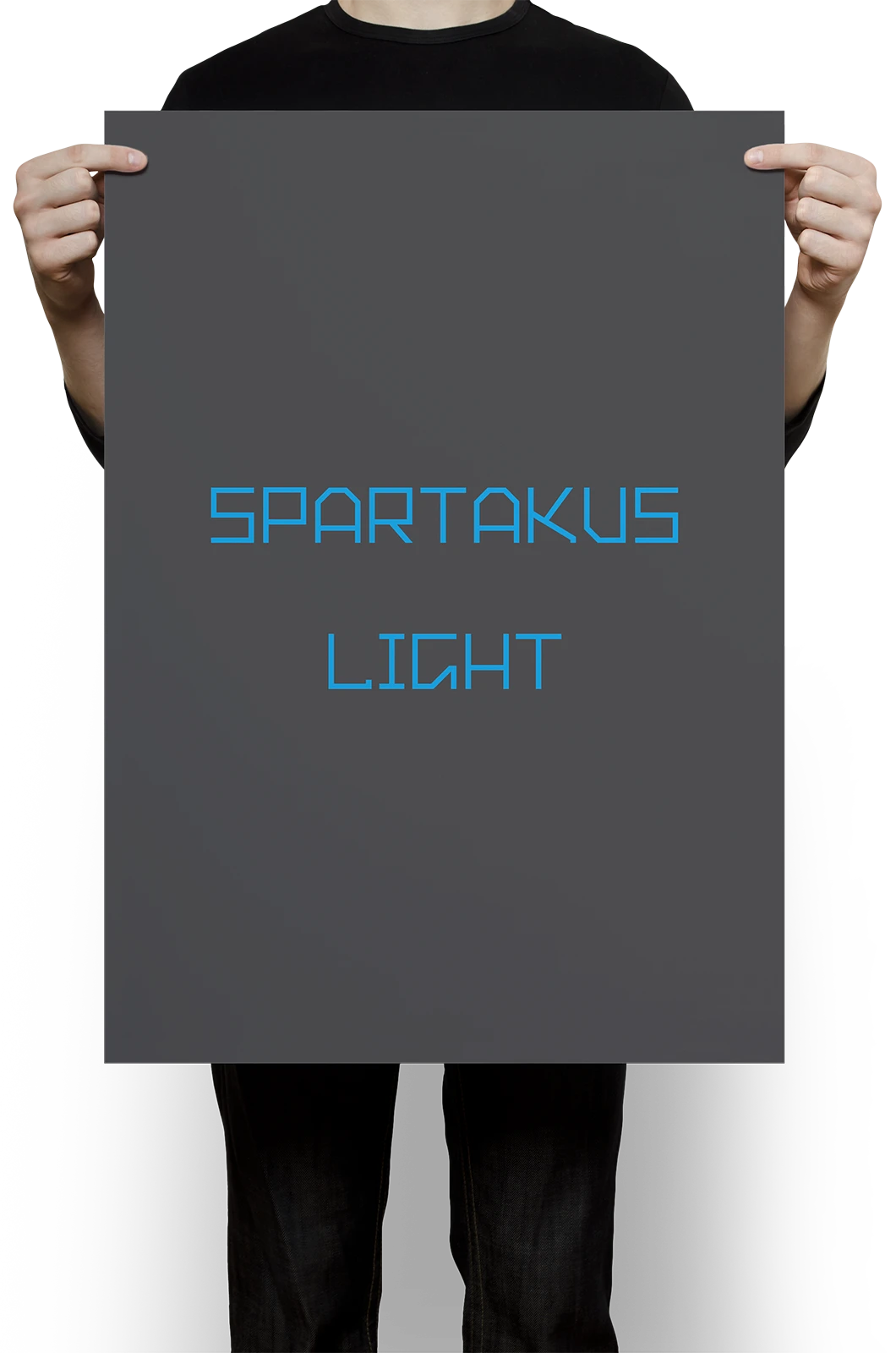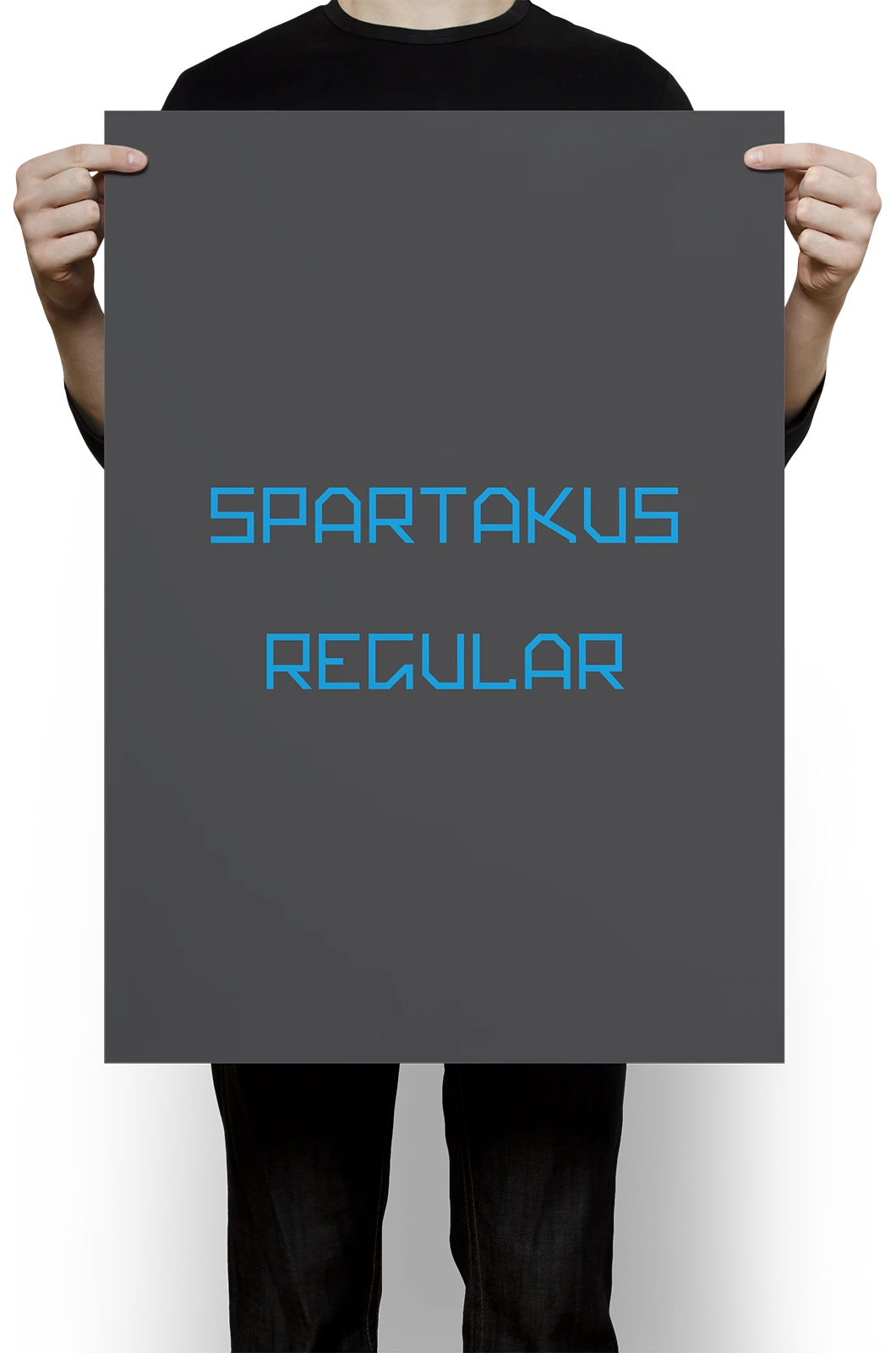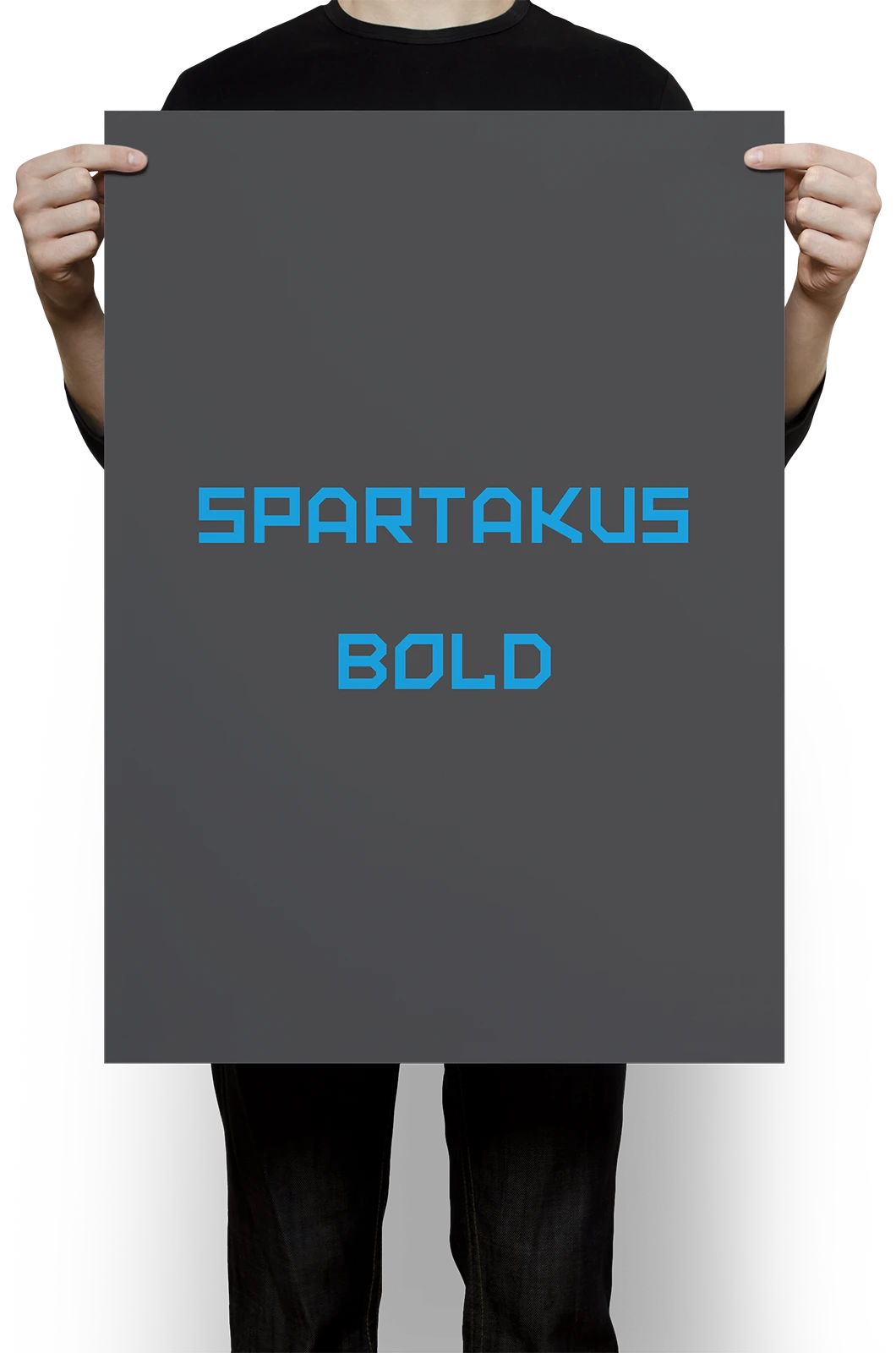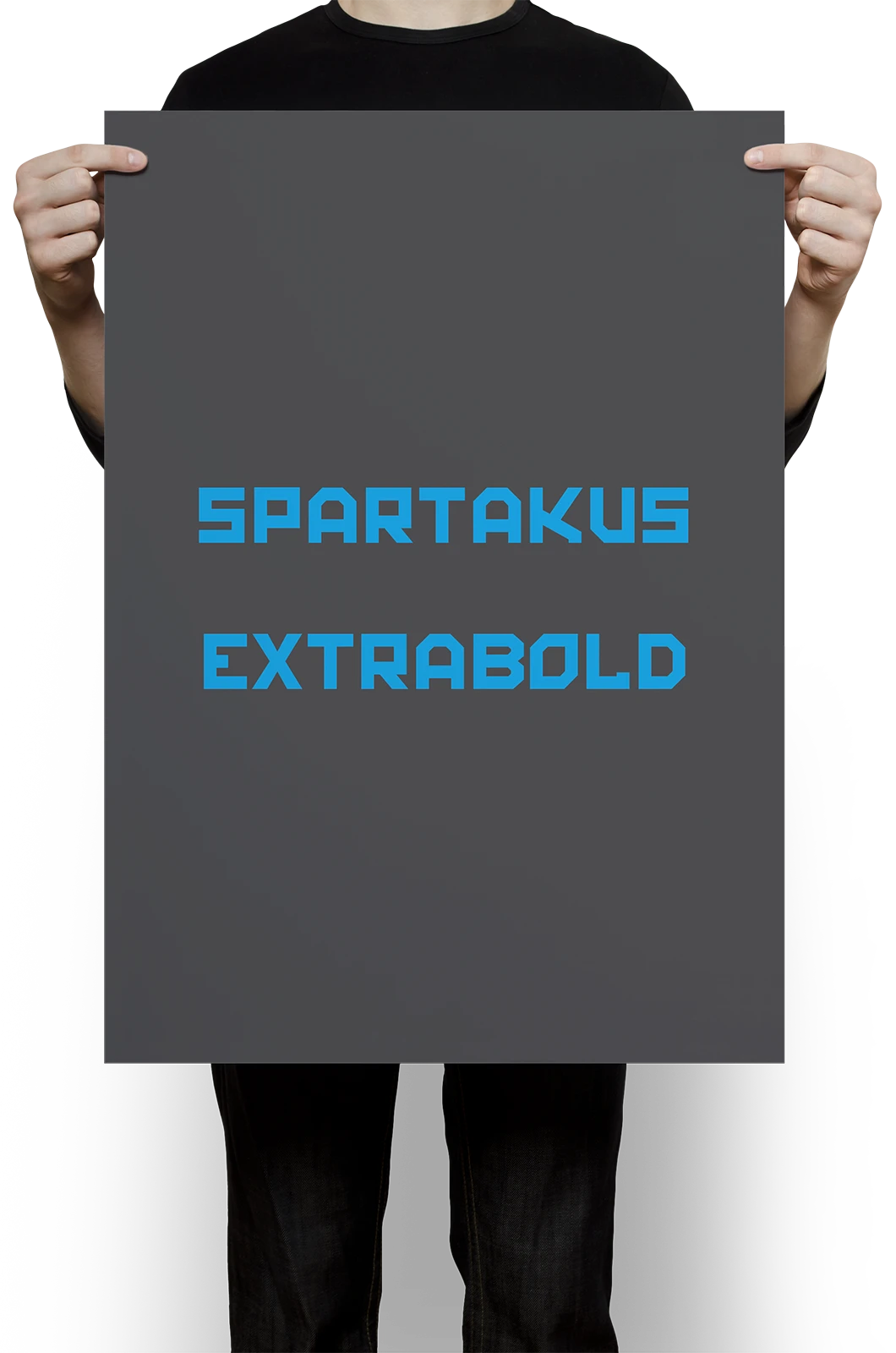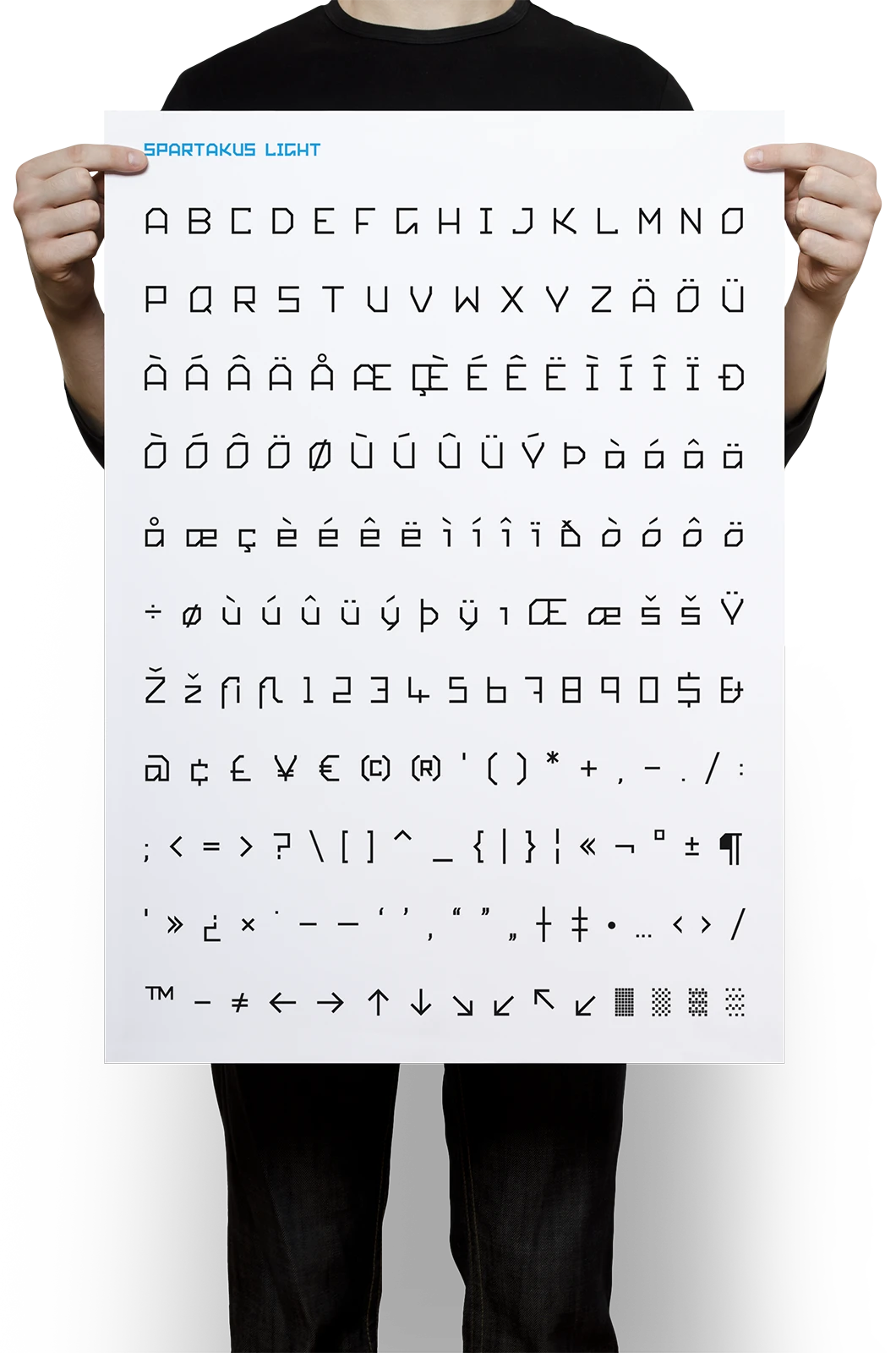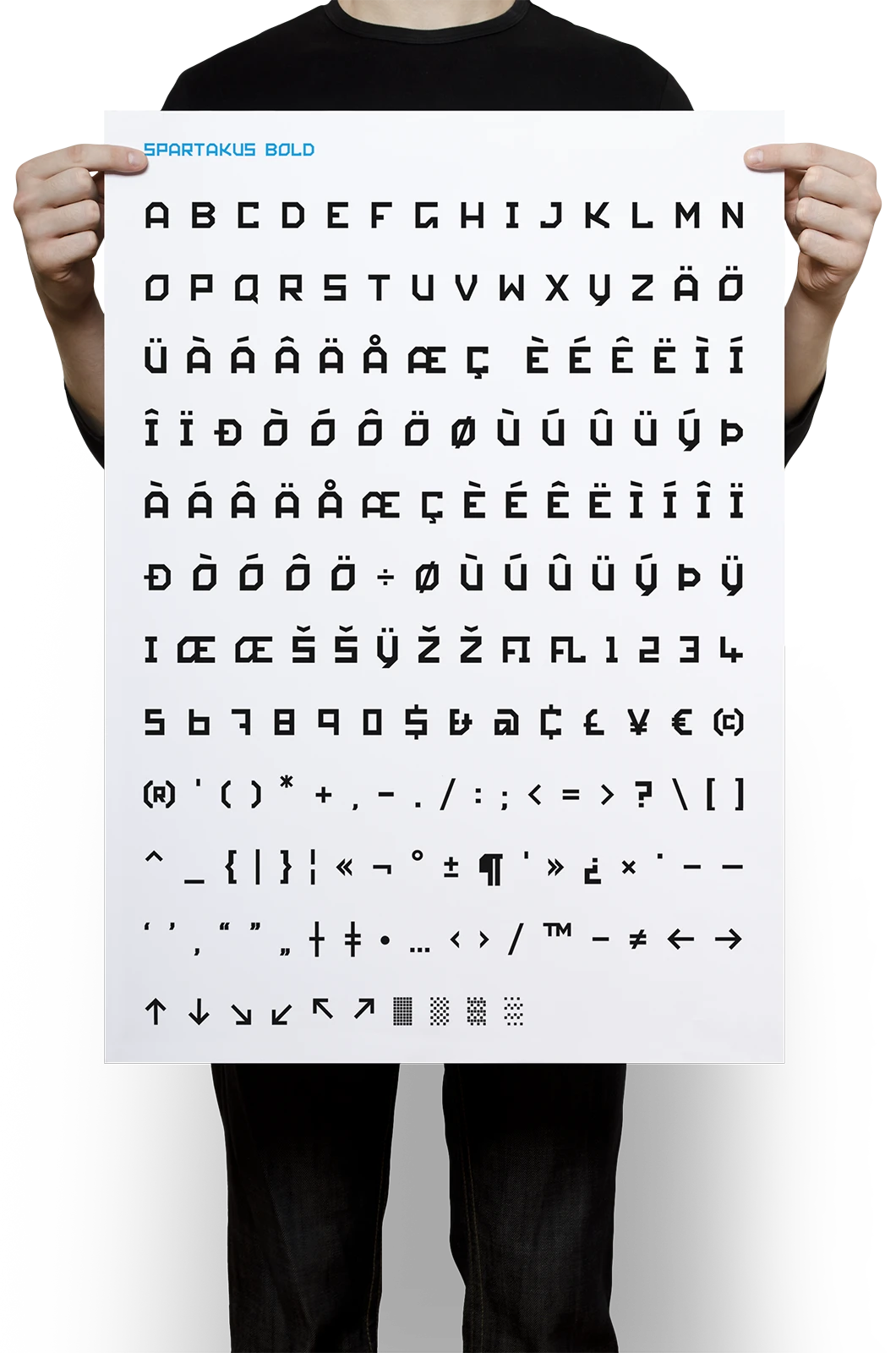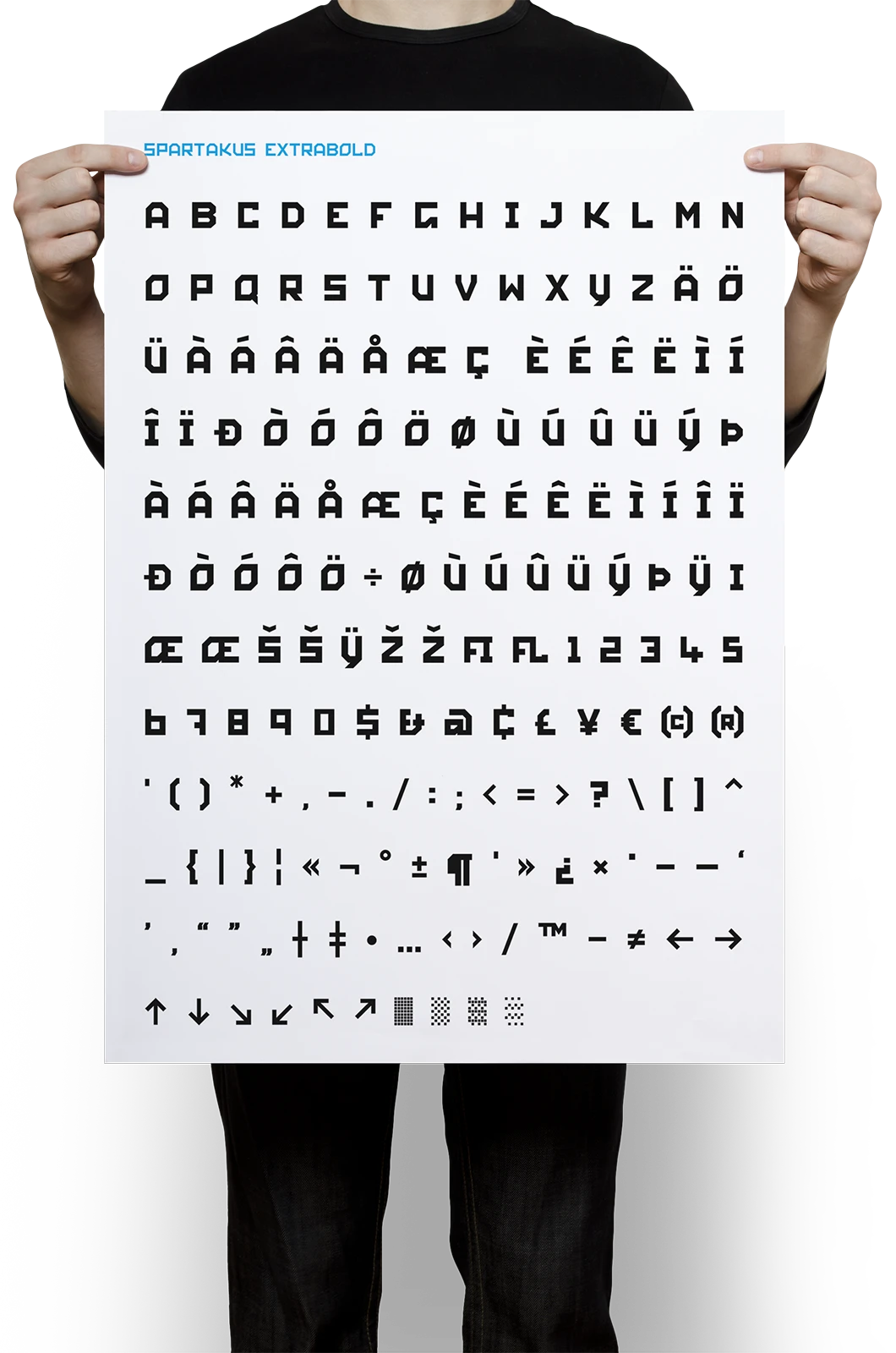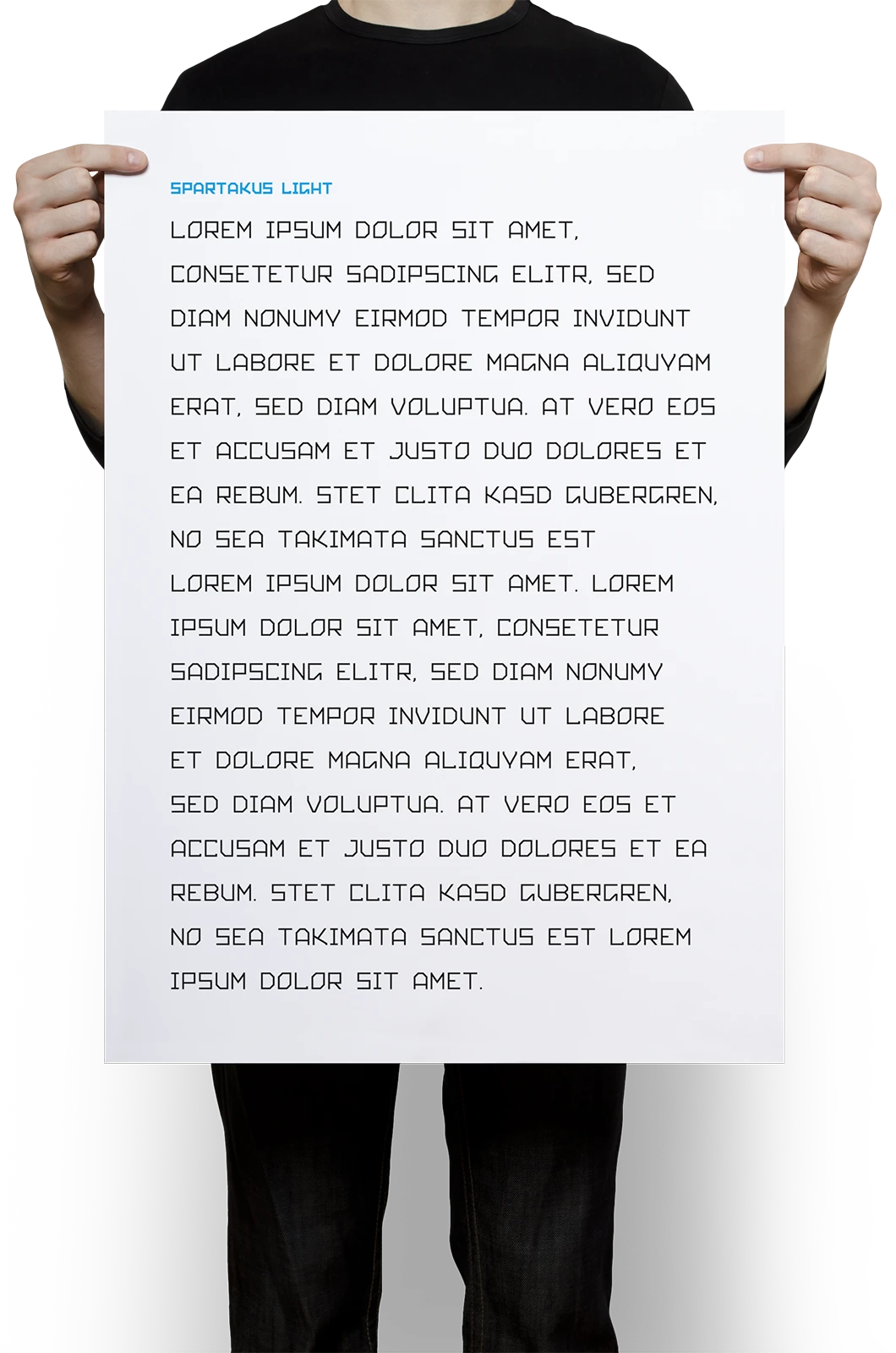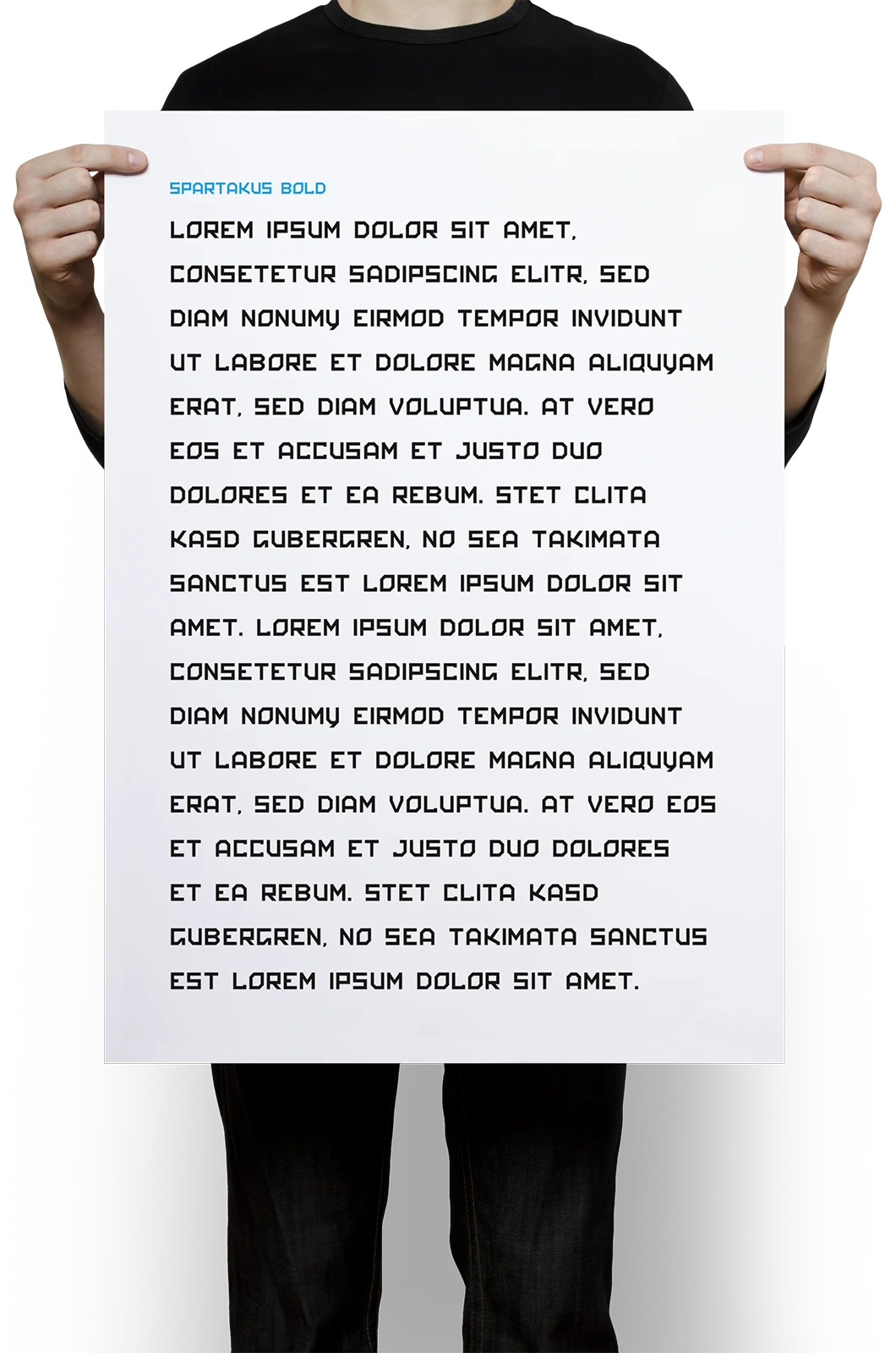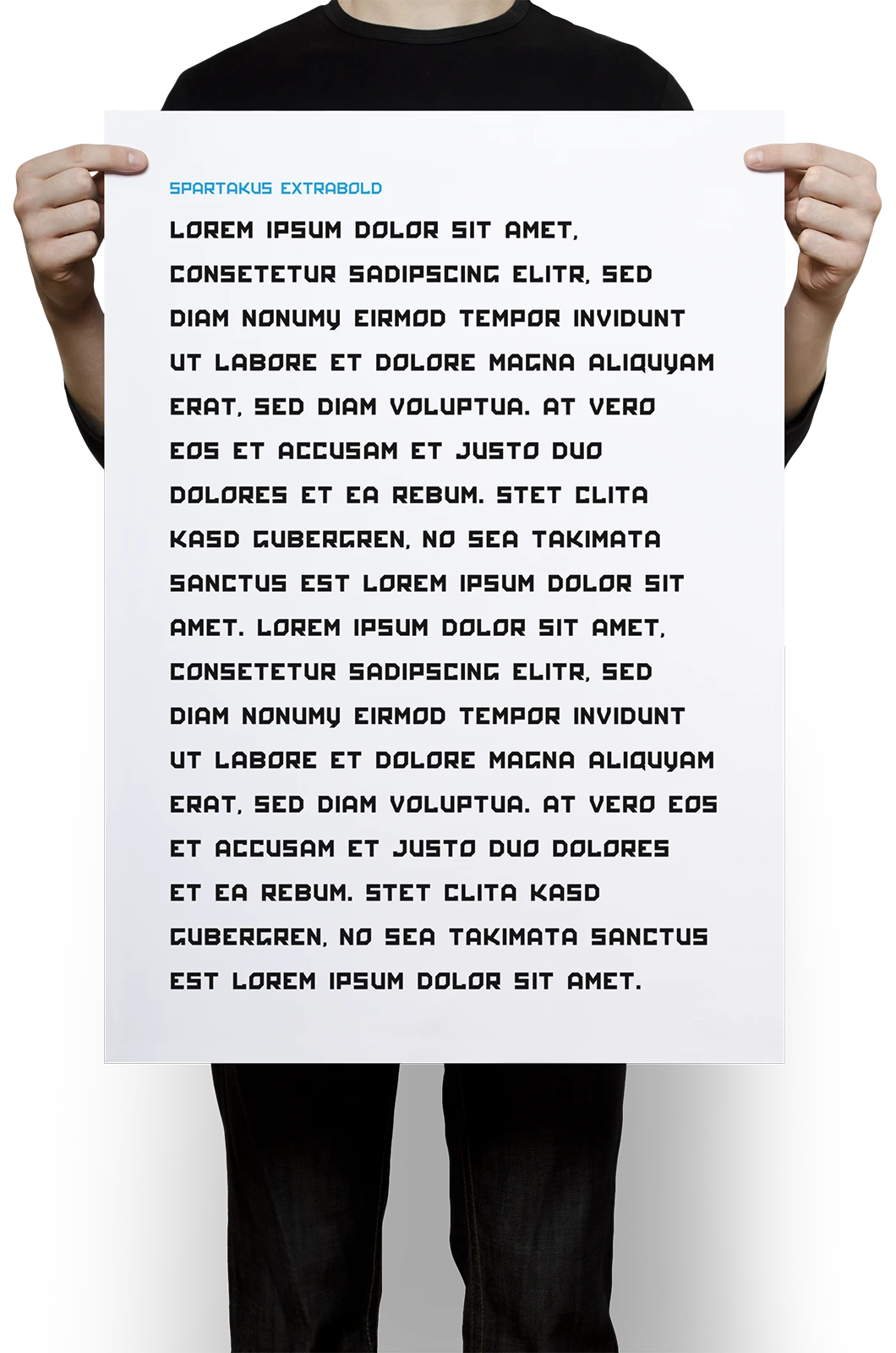
A project on the topic of typeface design, in which a Cyrillic-inspired headline font was created in various styles. This typeface was developed as part of the corporate design for the Potsdam youth club Spartakus.
Ein Projekt zum Thema Schriftgestaltung bei dem ein kyrillisch anmutender Headline-Schrift in verschiedenen Schnitten gestaltet wurde. Diese Schrift wurde im Rahmen des Corporatedesigns für den Potsdamer Jugendclub Spartakus entwickelt.